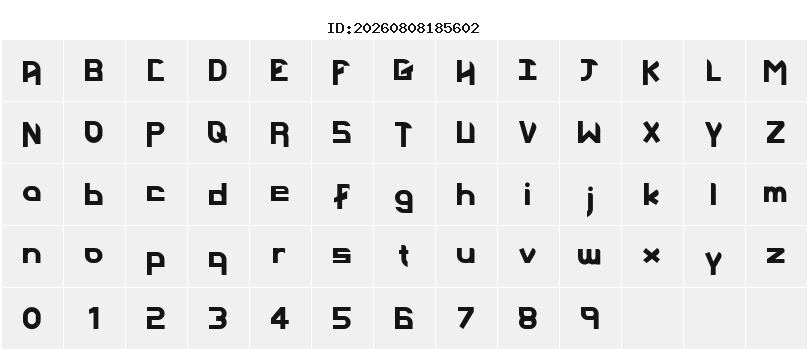
• Font Name: Plastic 101
About Plastic 101.ttf
Plastic 101.ttf is a modern, elegant sans-serif font designed for ultimate readability and visual harmony. Perfect for branding, headlines, web design, and print materials.